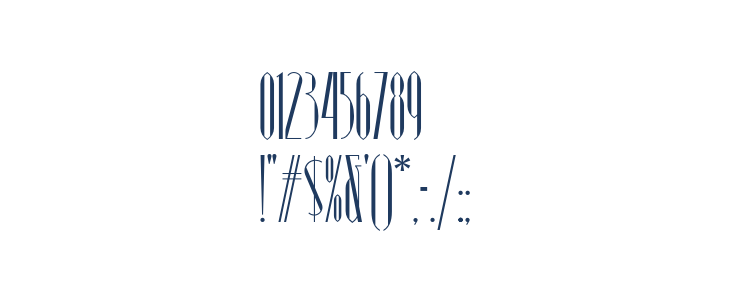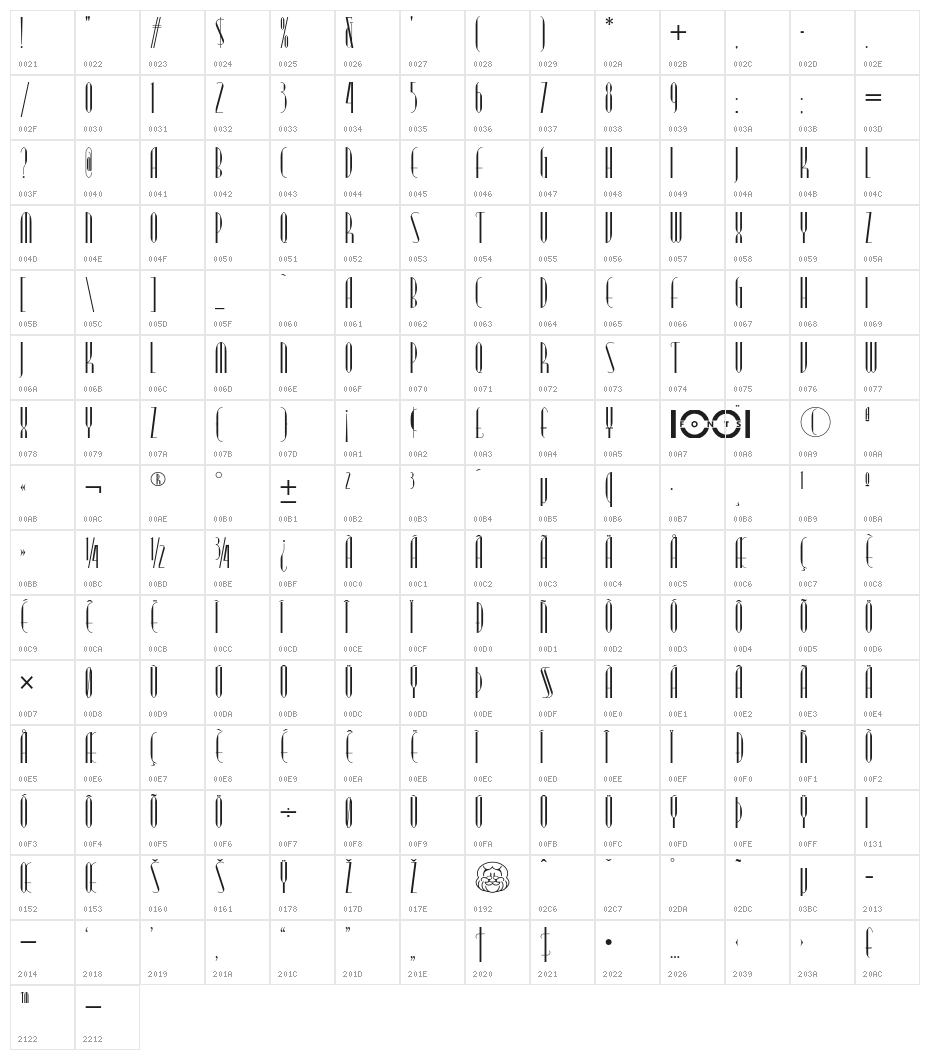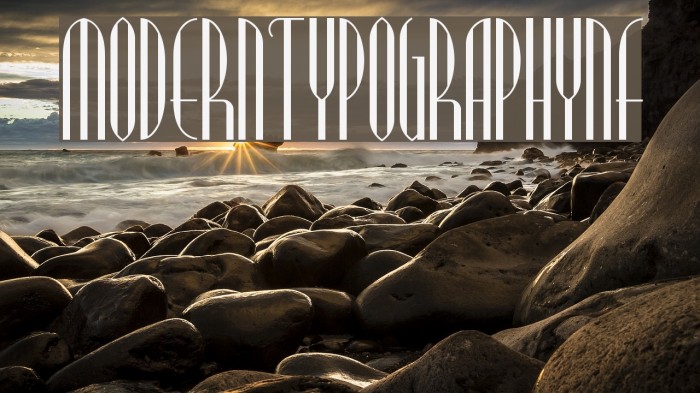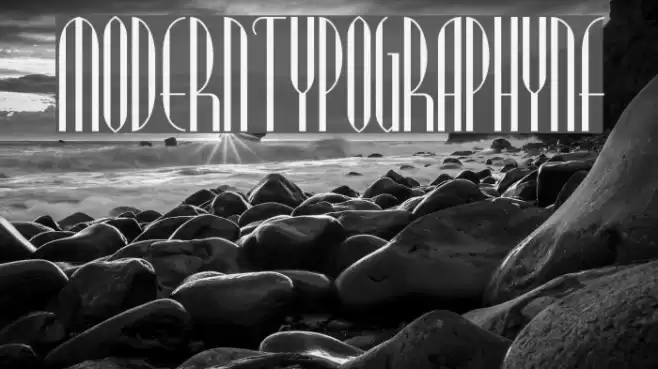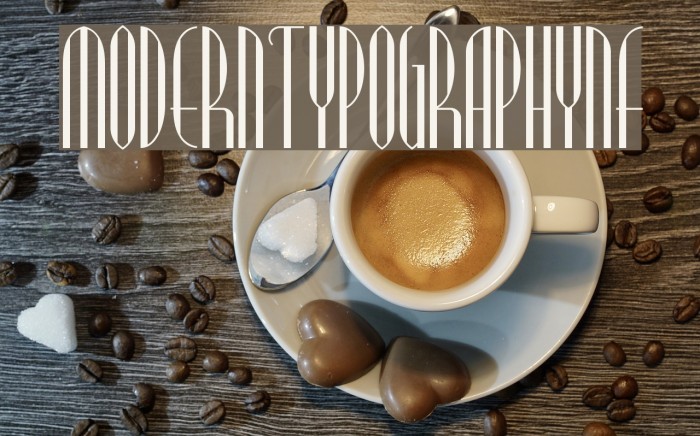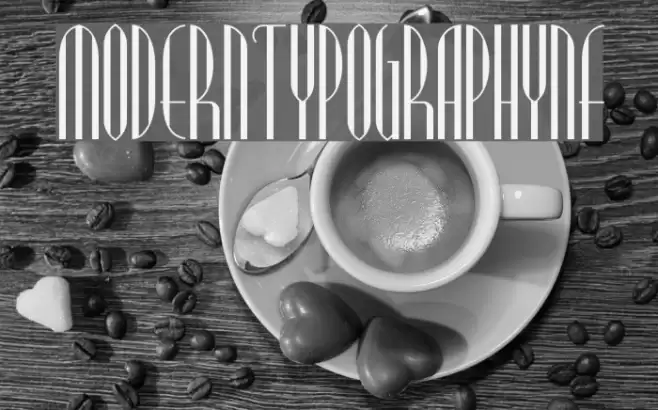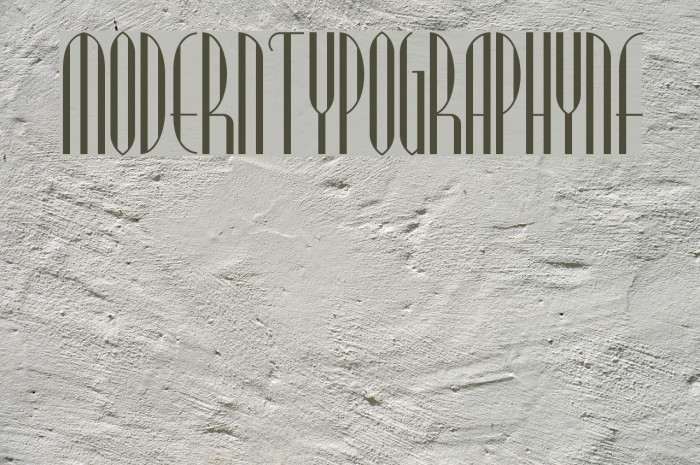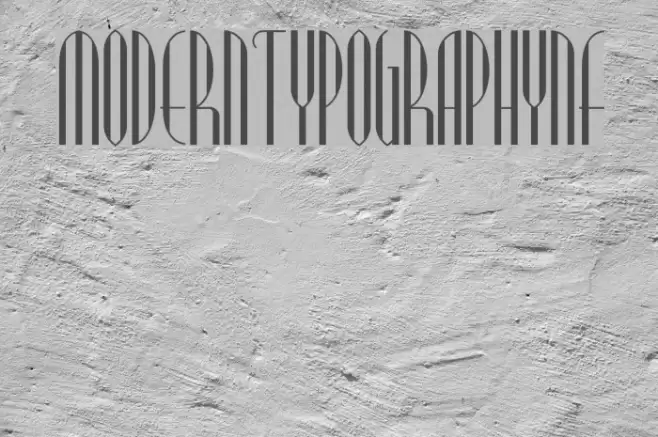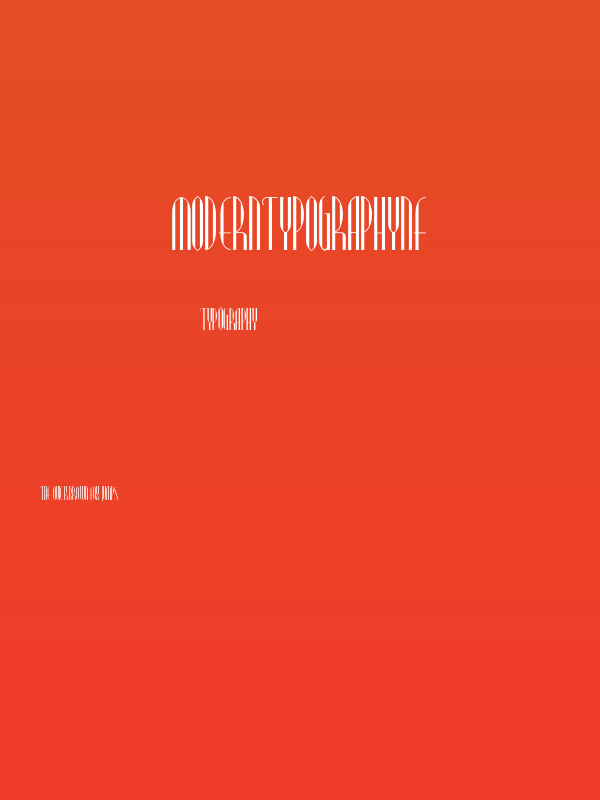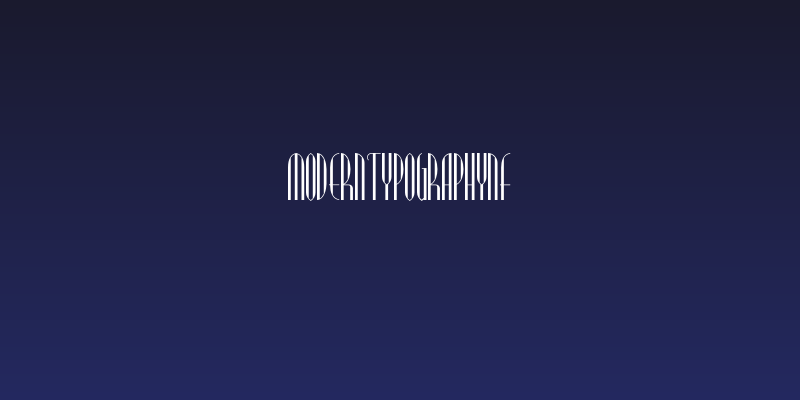
ModernTypographyNF Font
ModernTypographyNF Description
This font features a strikingly tall and narrow design, characterized by its elongated letterforms and high contrast between thick and thin strokes. The uppercase and lowercase letters maintain a consistent vertical alignment, creating a cohesive and elegant appearance. The numerals and special characters follow the same stylistic approach, ensuring uniformity across all glyphs. The overall aesthetic is modern and sophisticated, making it ideal for projects that require a touch of elegance and refinement. The font's unique style is well-suited for use in high-end branding, fashion magazines, and luxury product packaging.
| Proposed Projects | Ideal for luxury branding, fashion editorials, and high-end product packaging. |